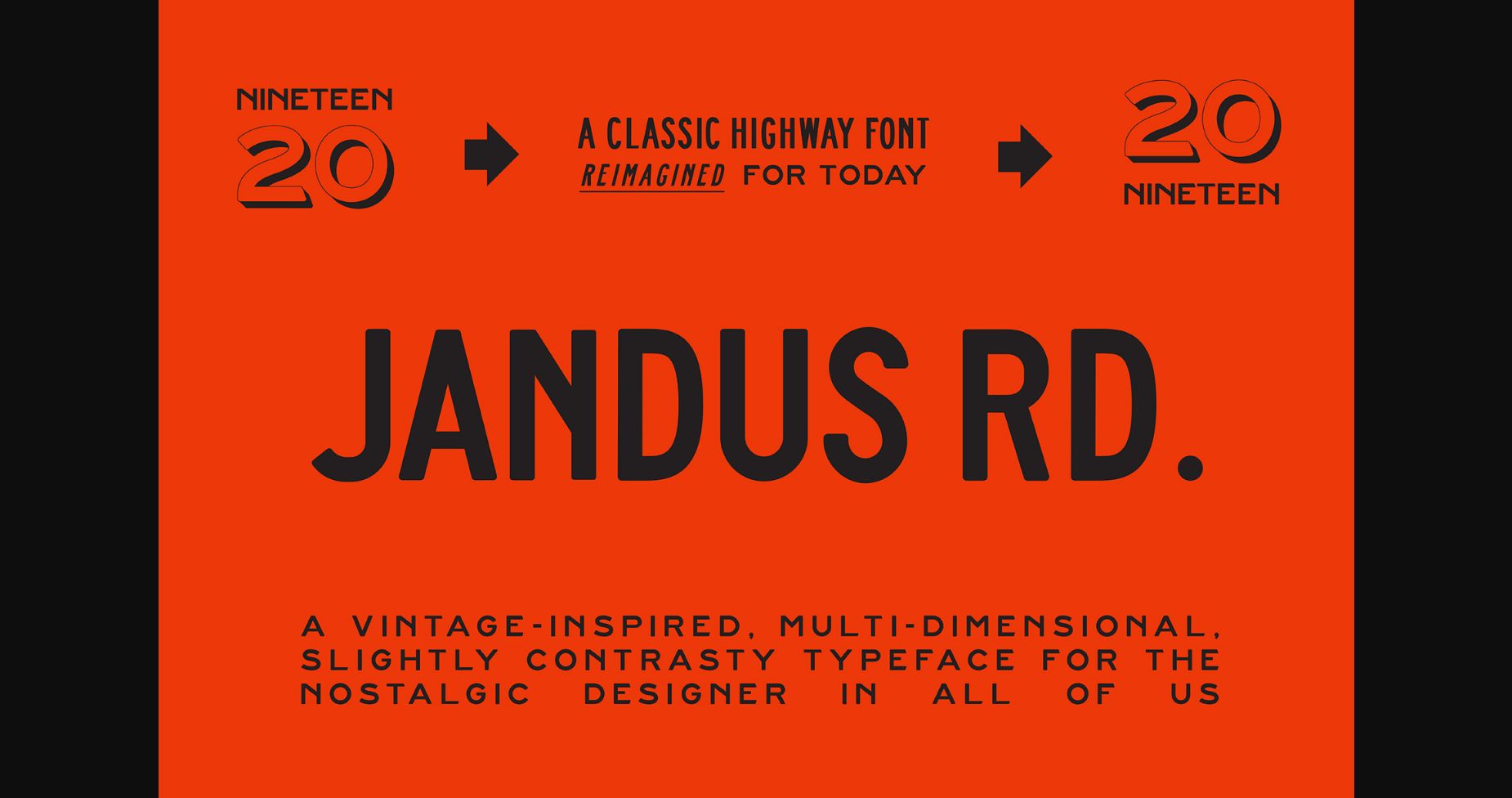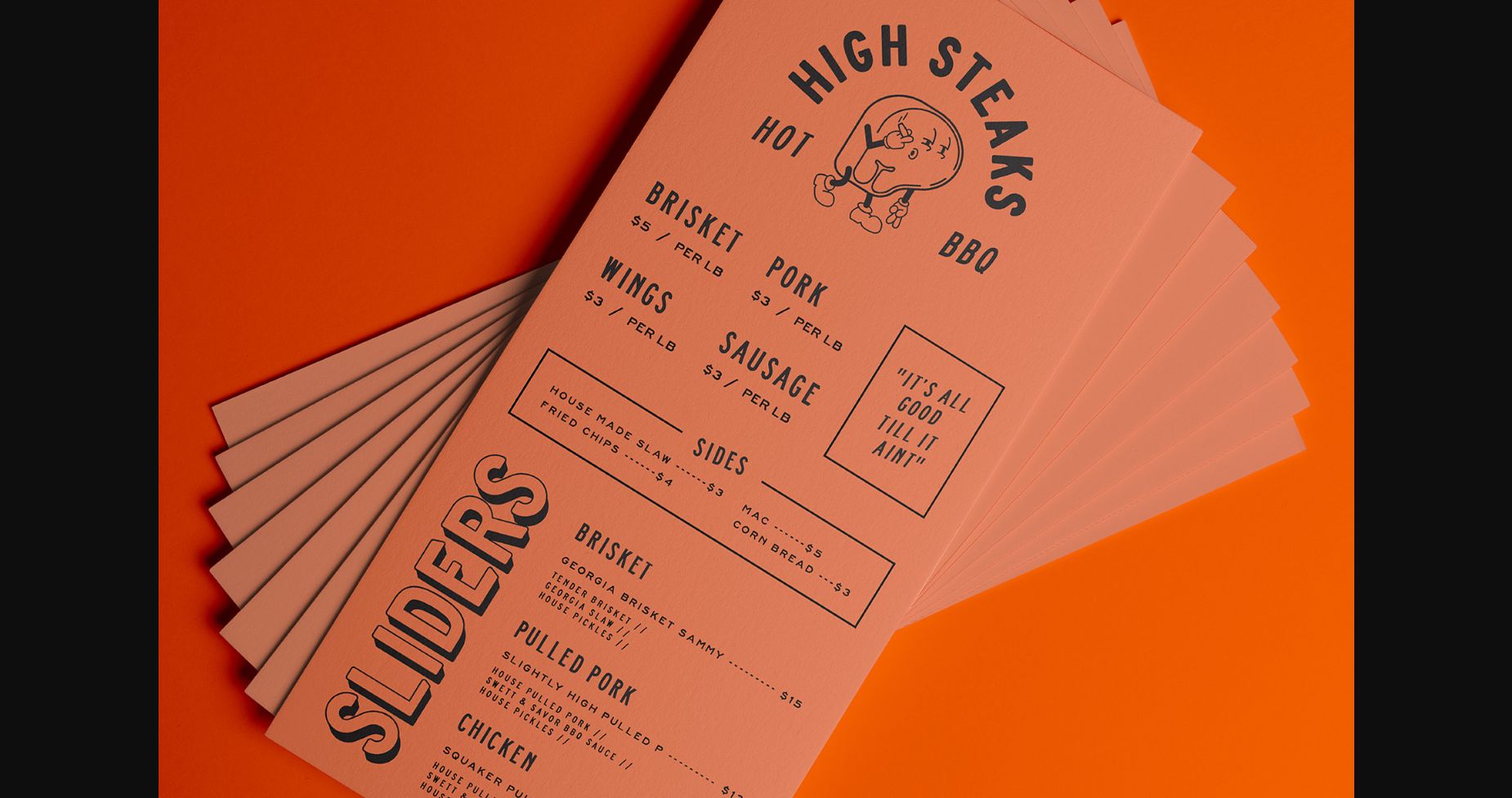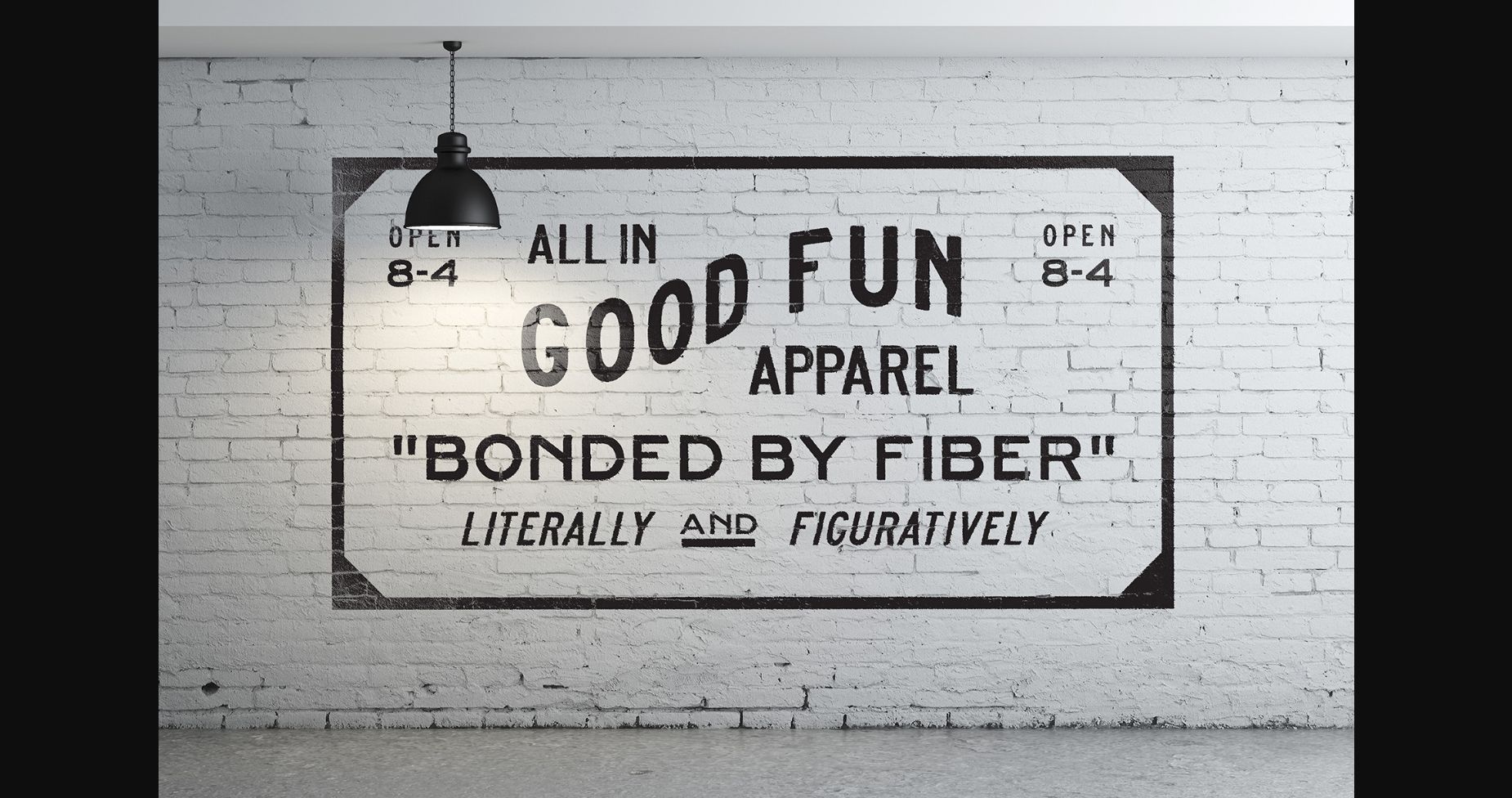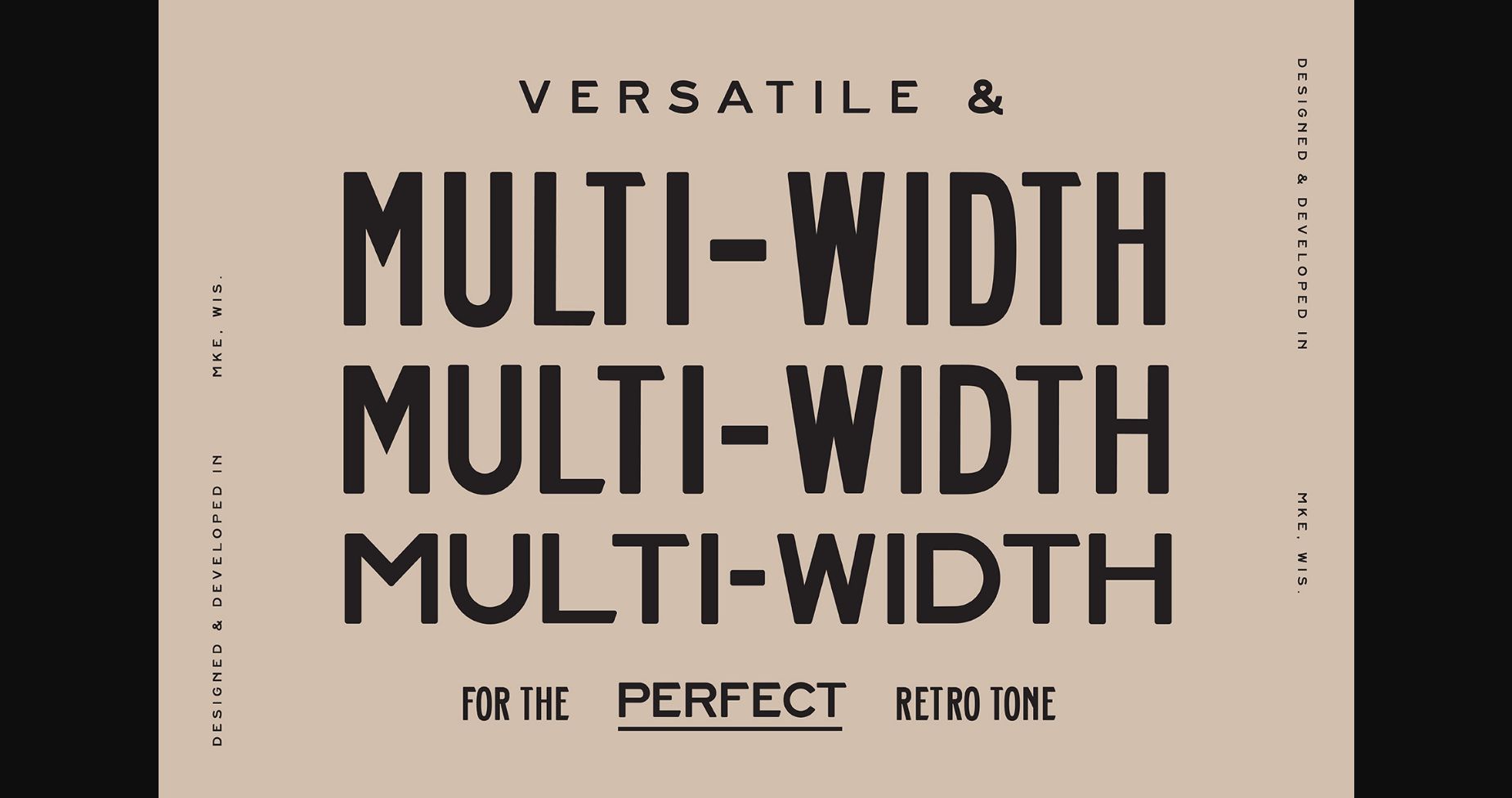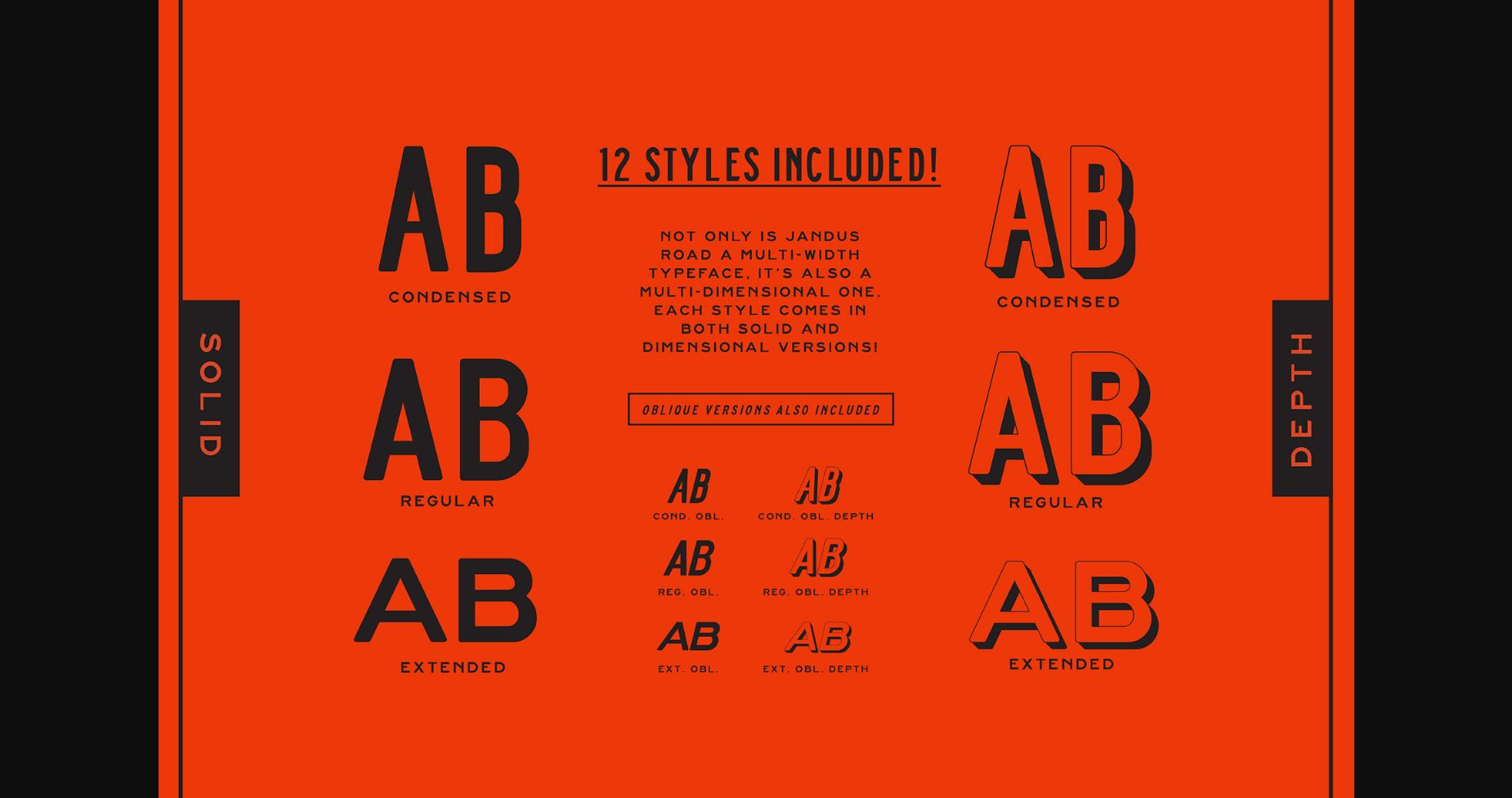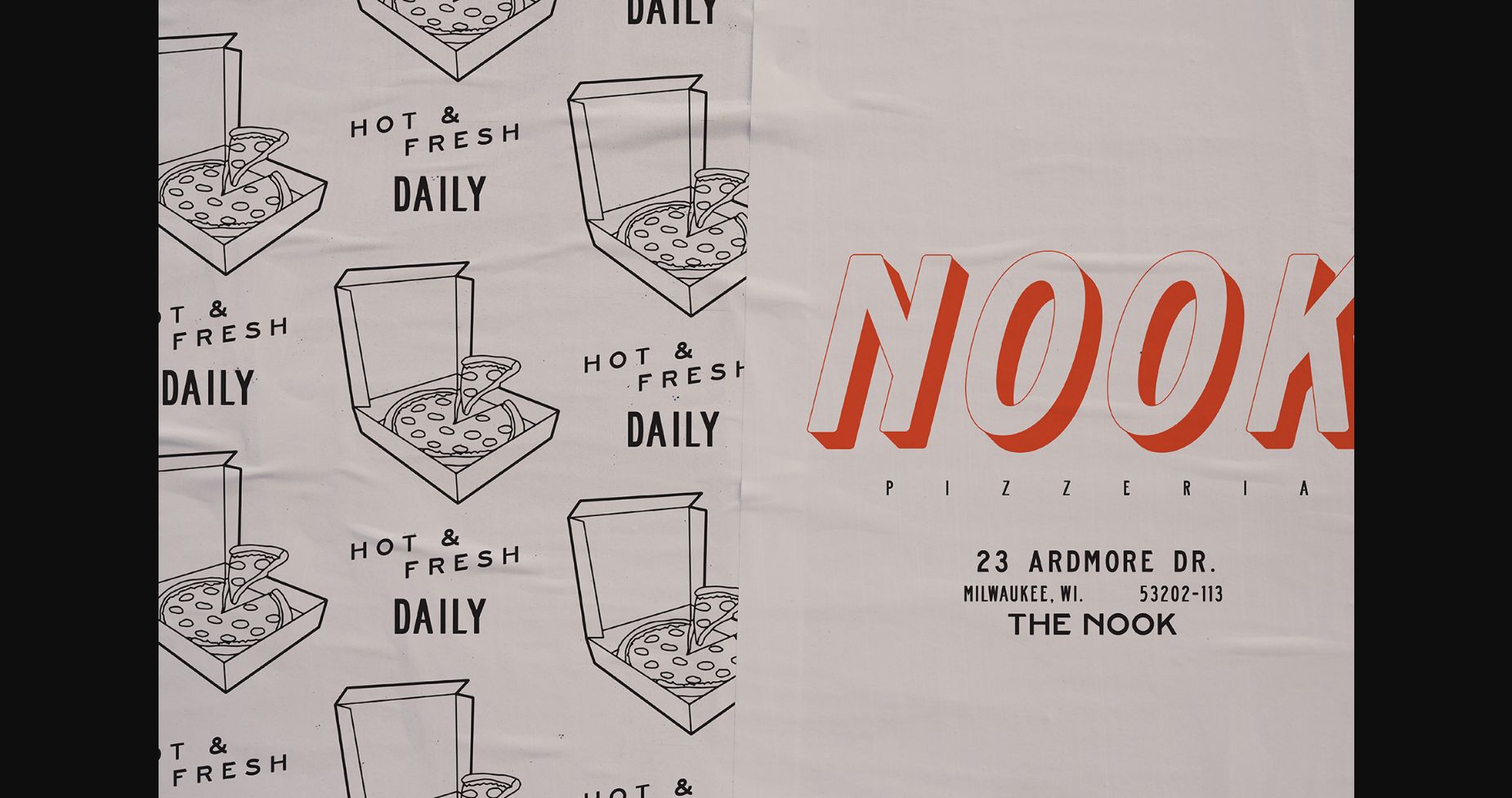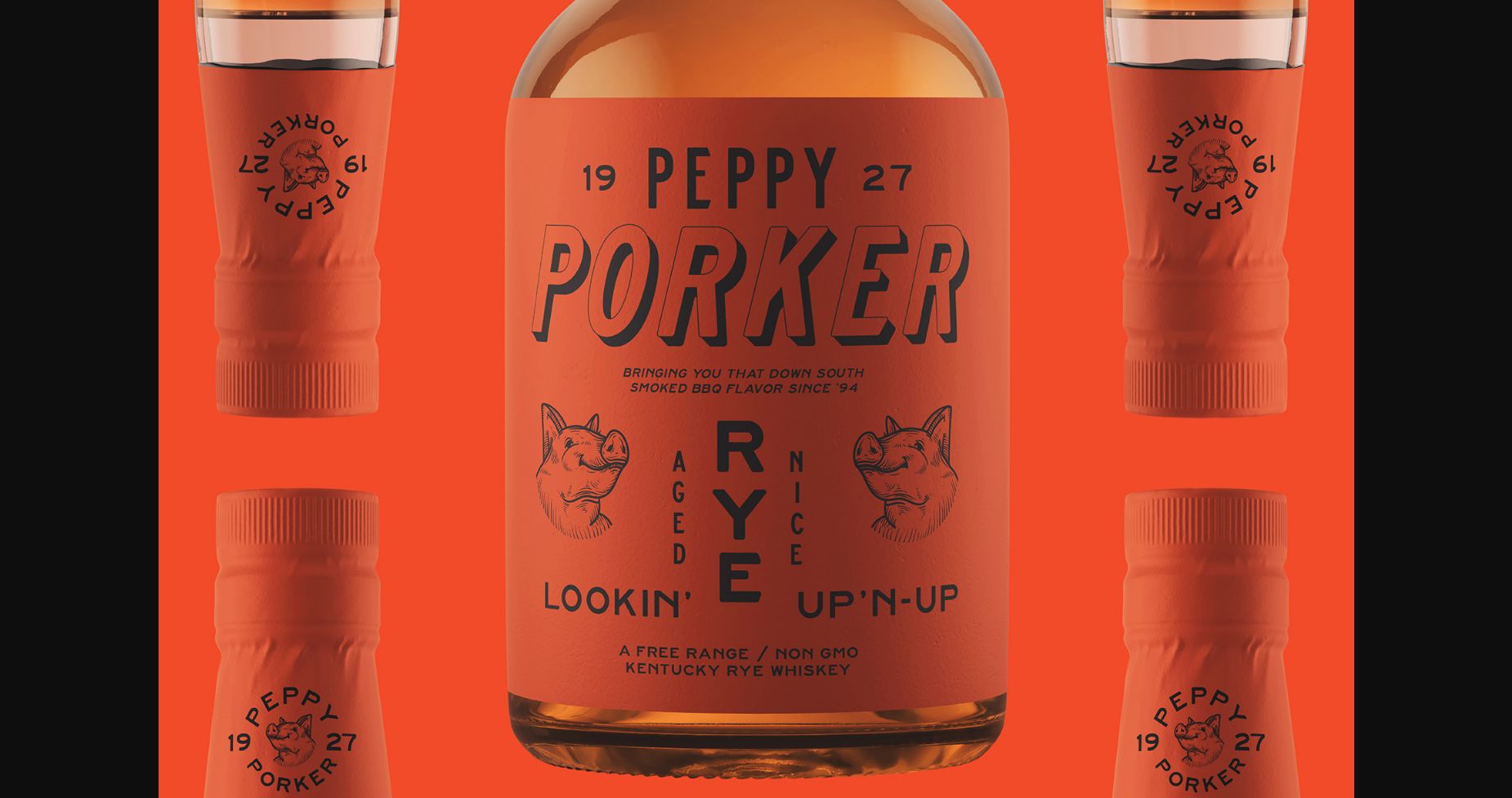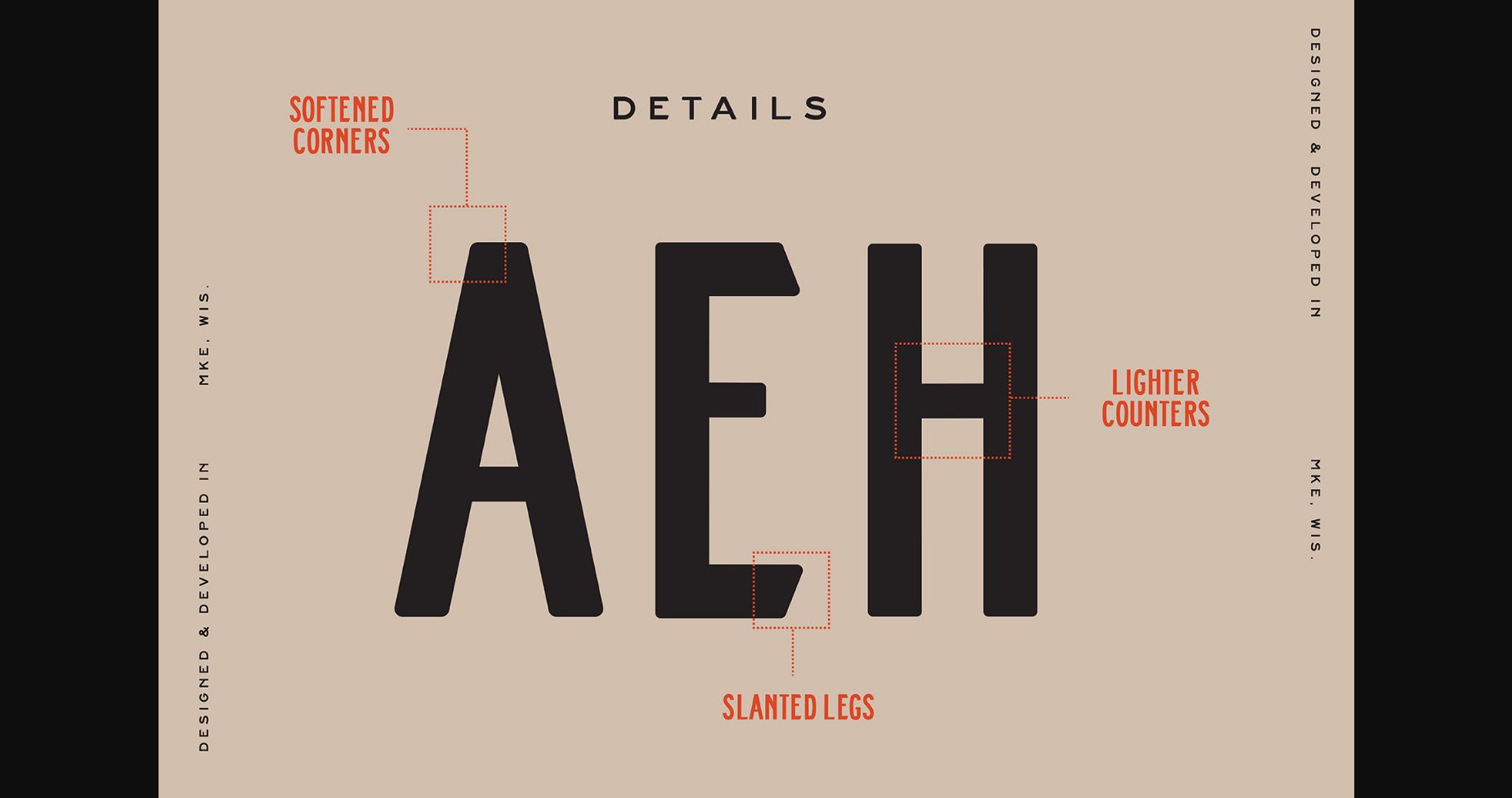
Jandus Road Font
About Jandus Road Font
Jandus Road is a bold and thick lettered sans serif font. This font reads as strong, confident, and dynamic and can add tons of nostalgic character to your designs